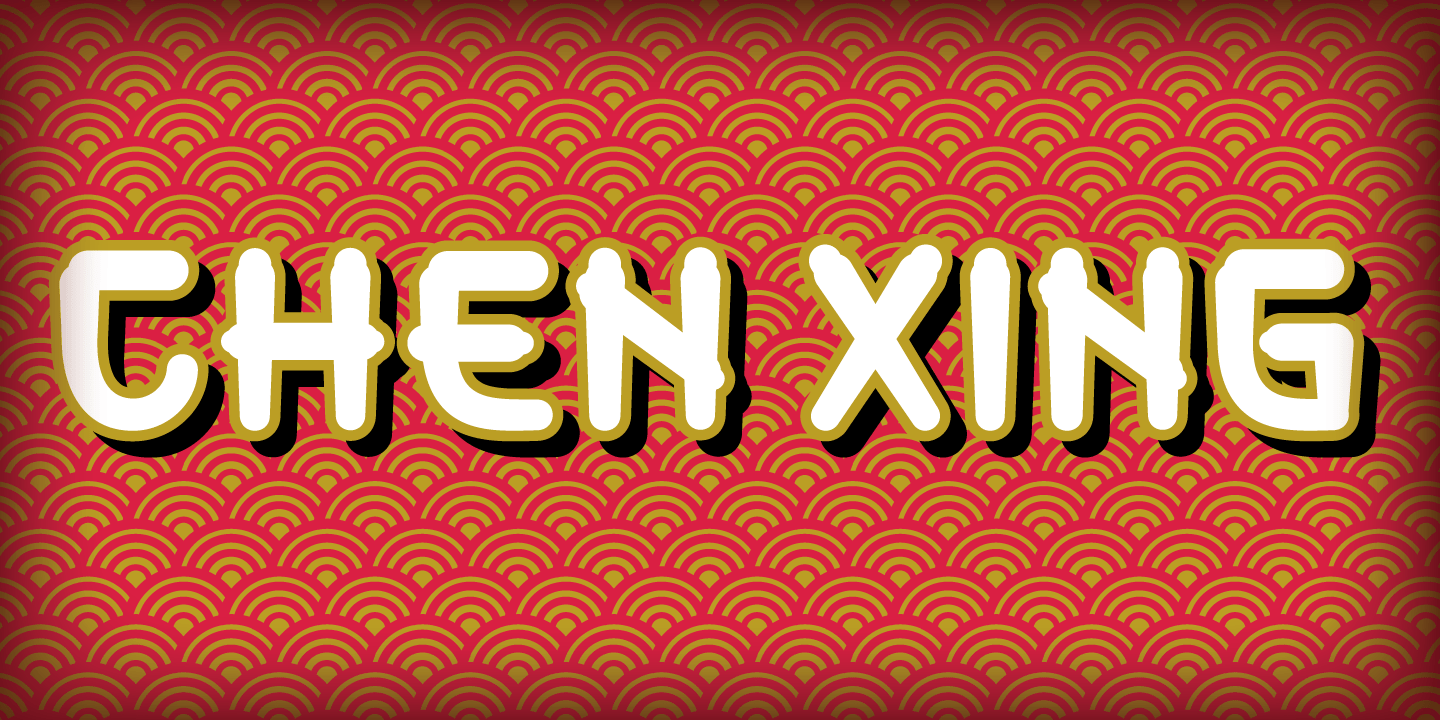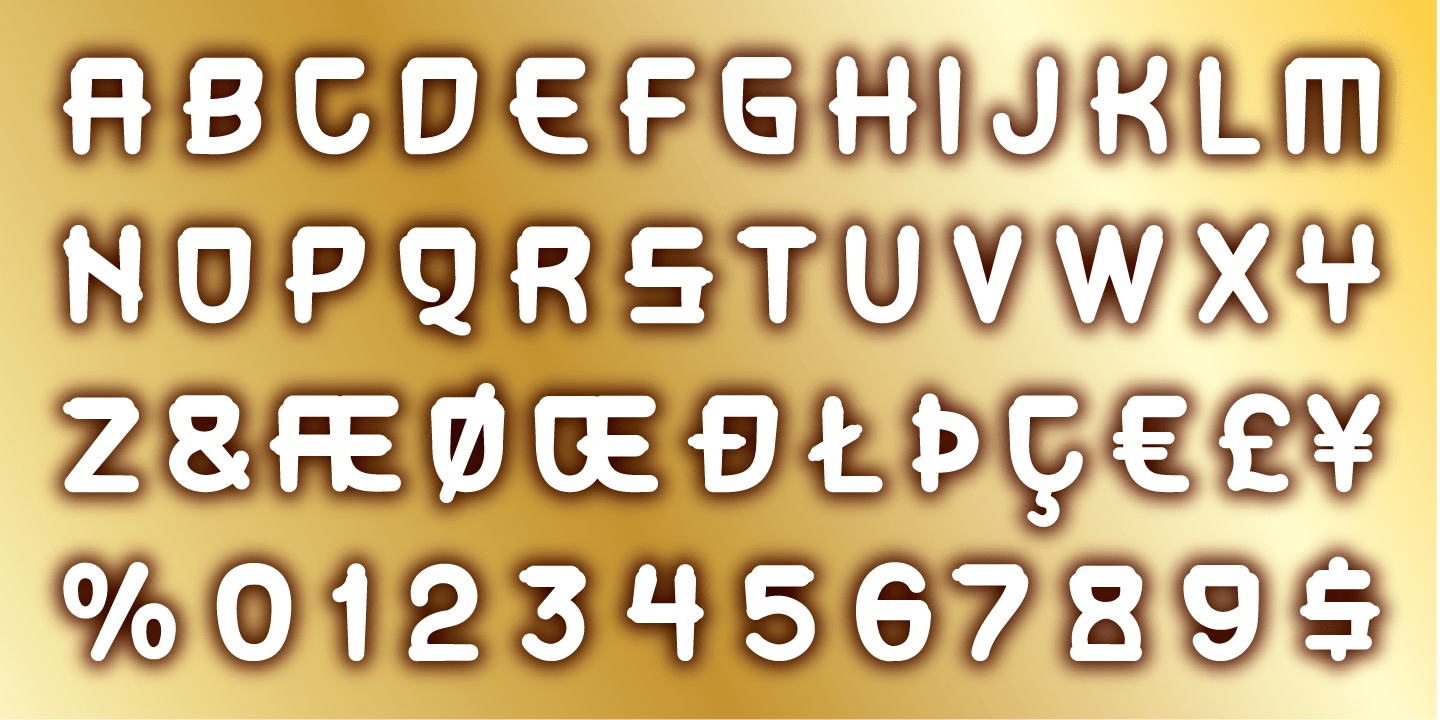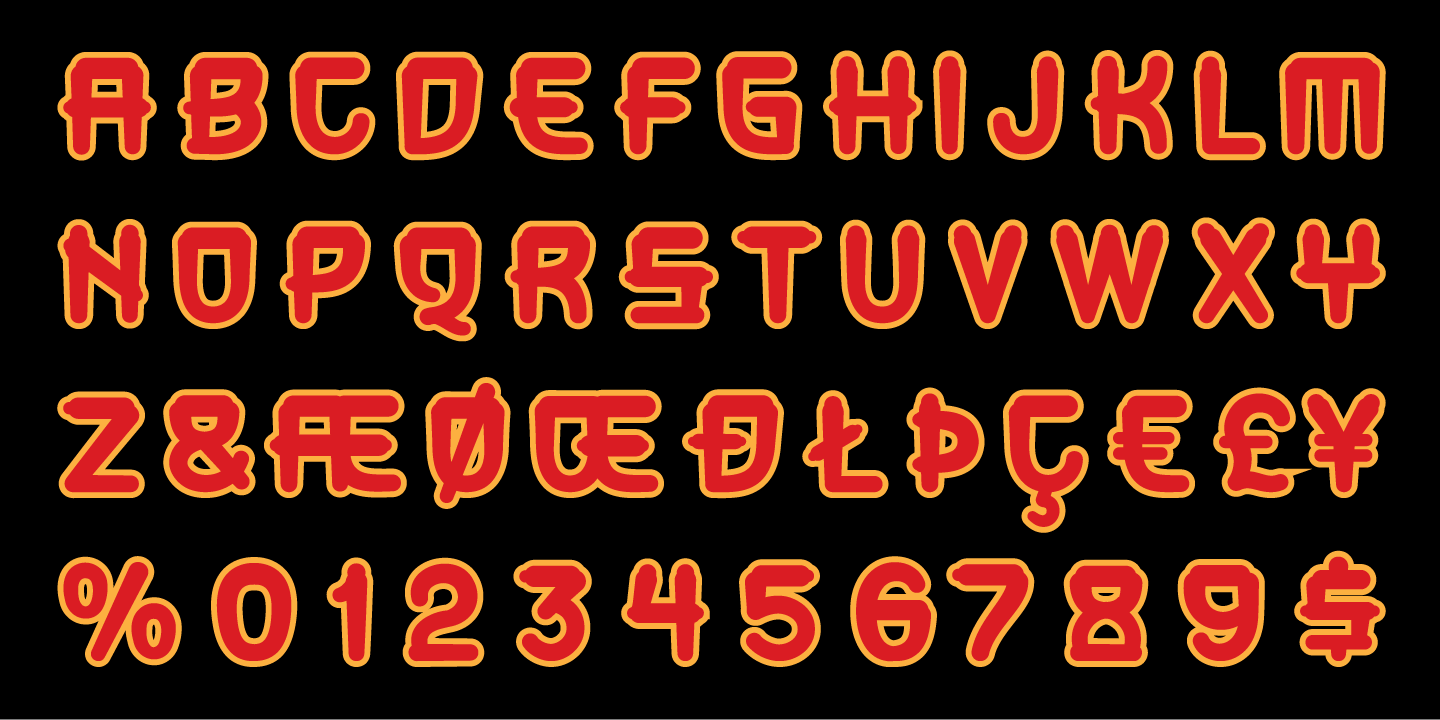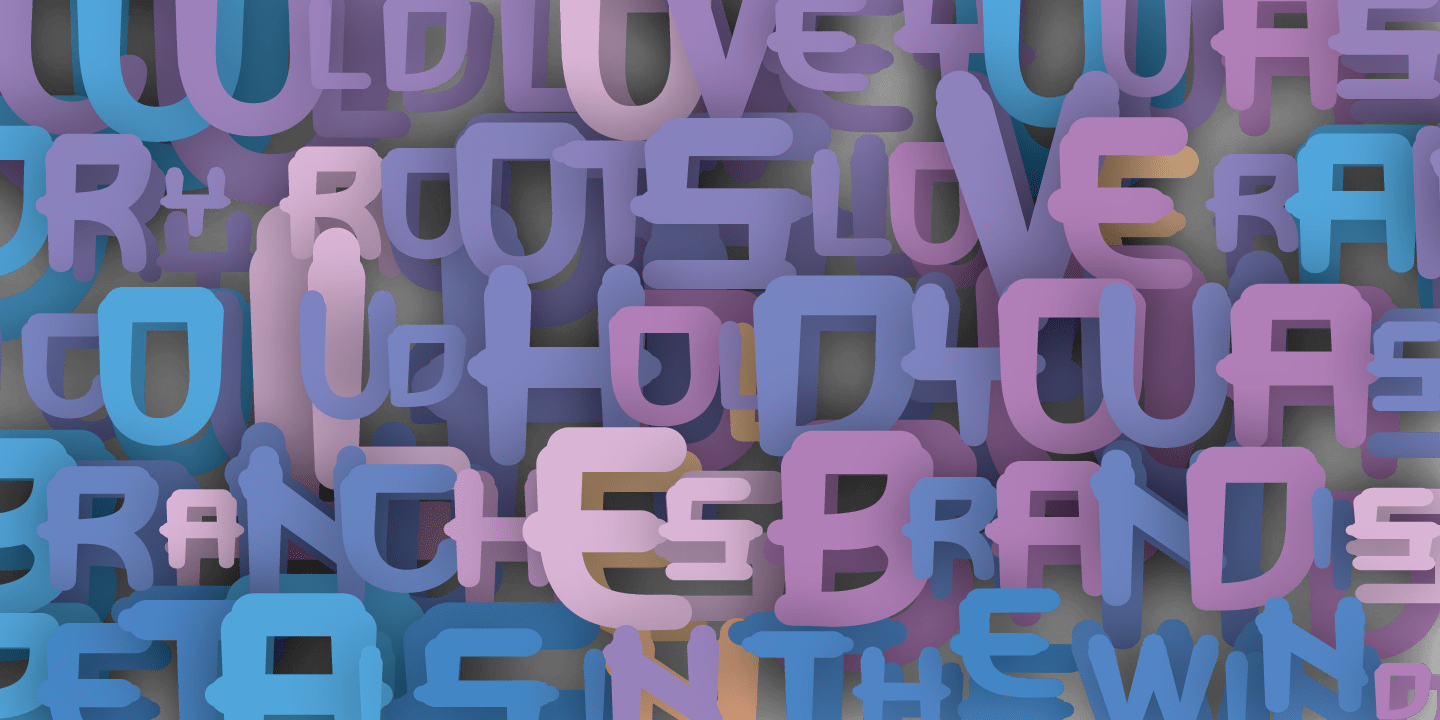
Chen Xing
Chen Xing, literally 'morning star', a font both futuristic yet mystifyingly ancient is cast in contemporary forms on the cutting edge of the present moment, but harkens back centuries to endless cultural heritage.